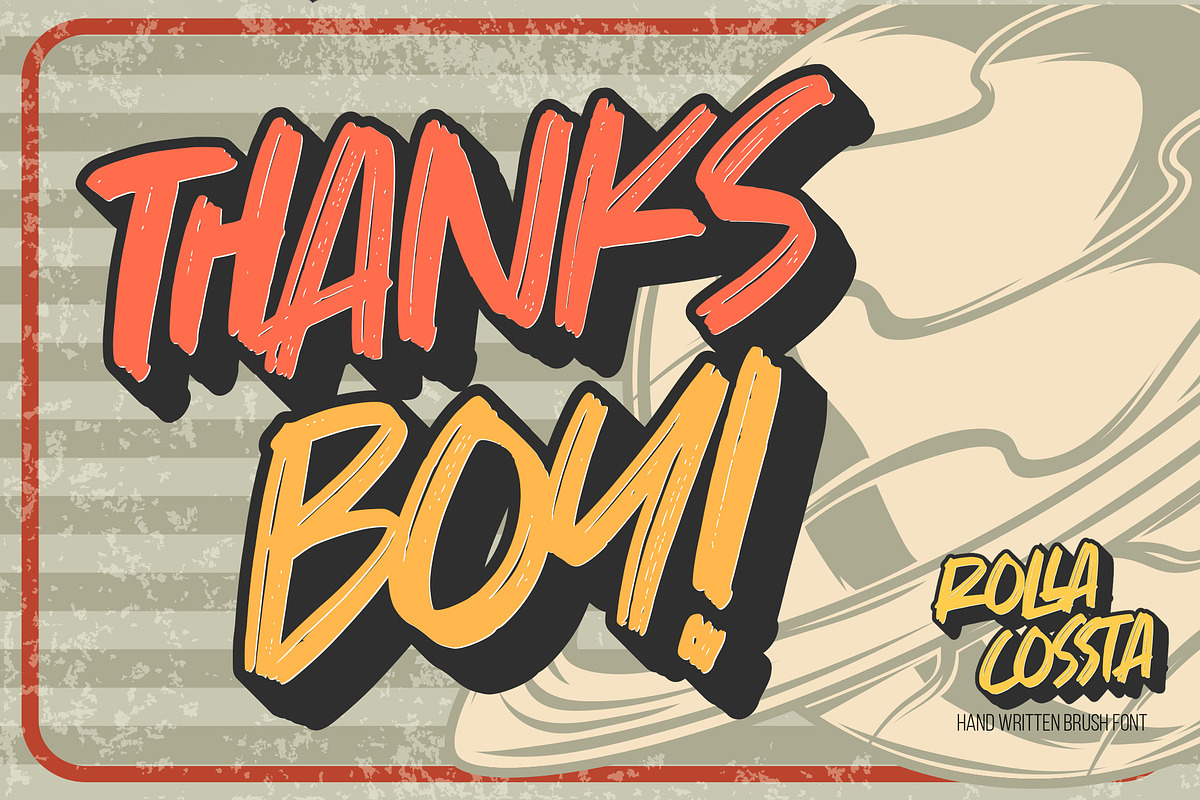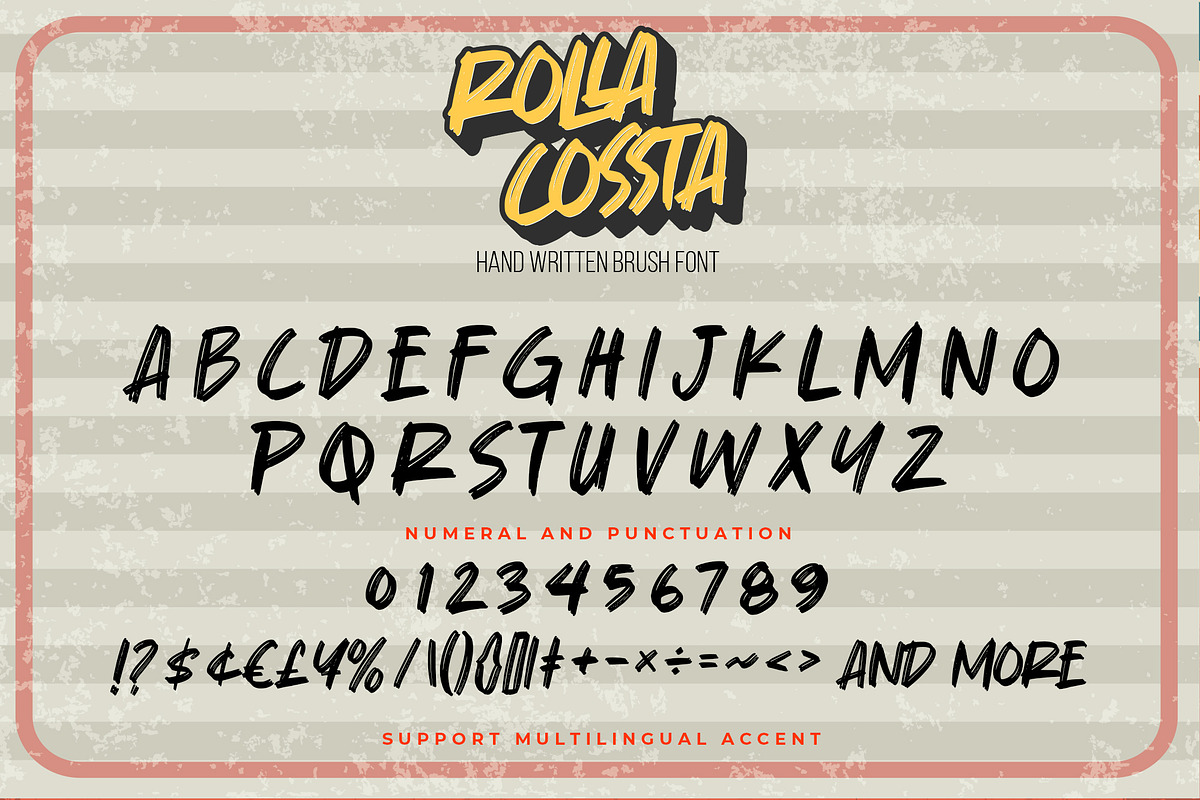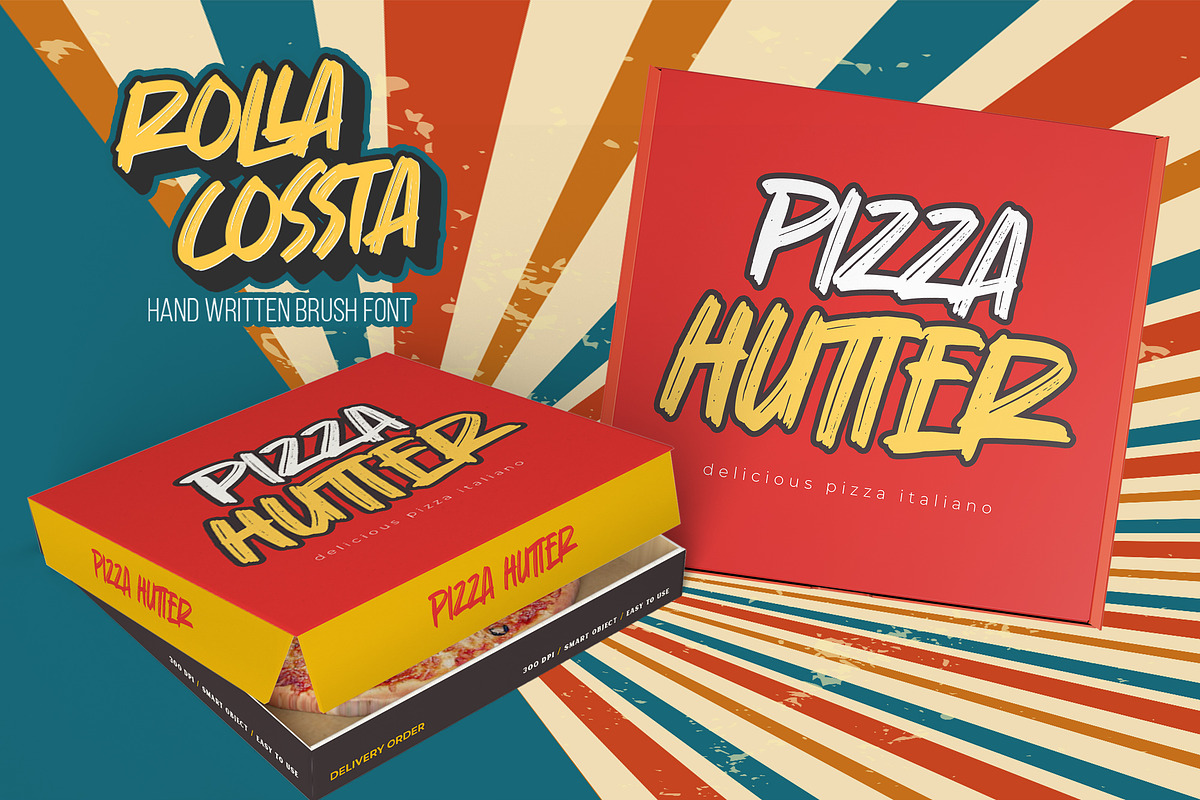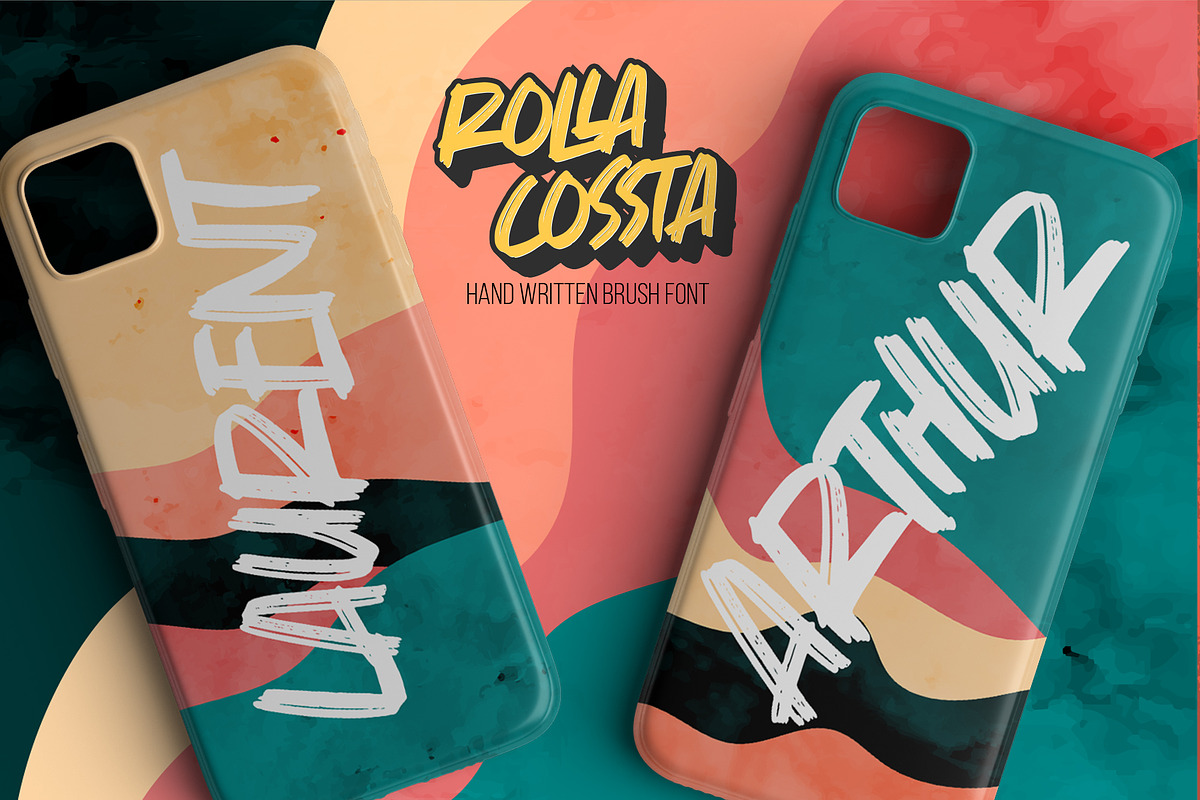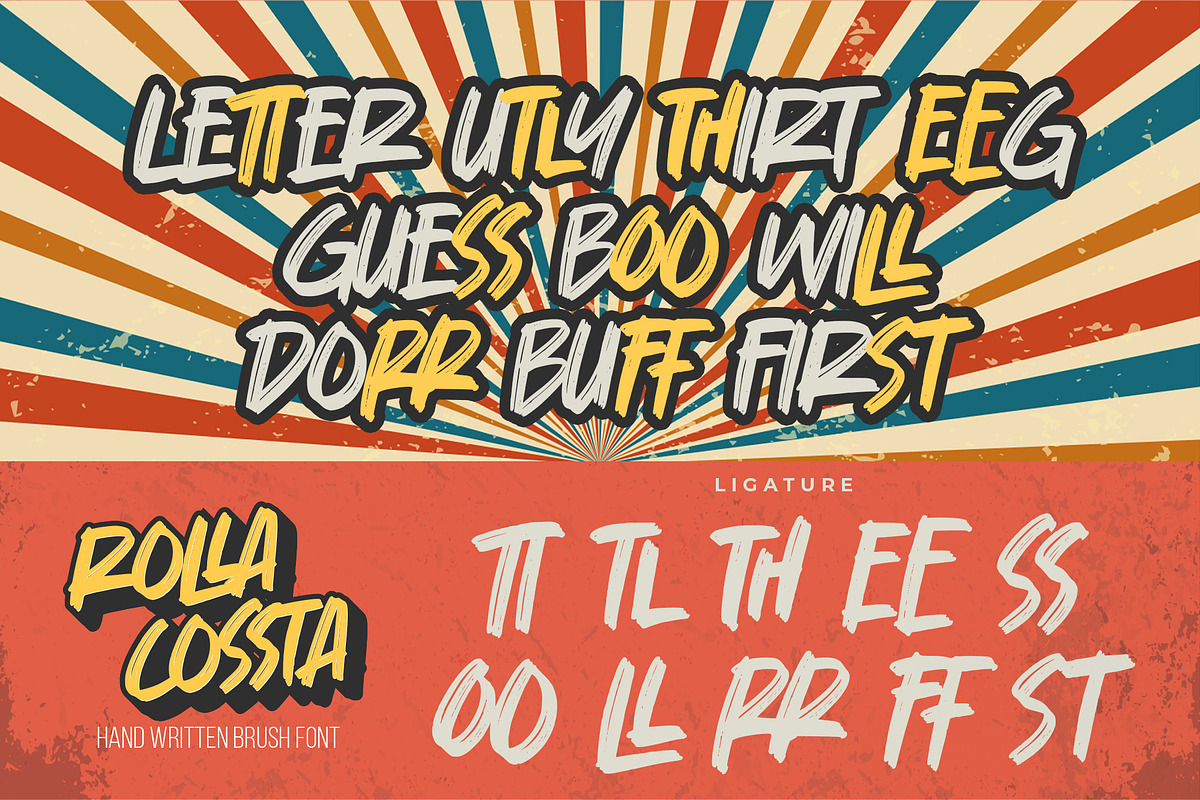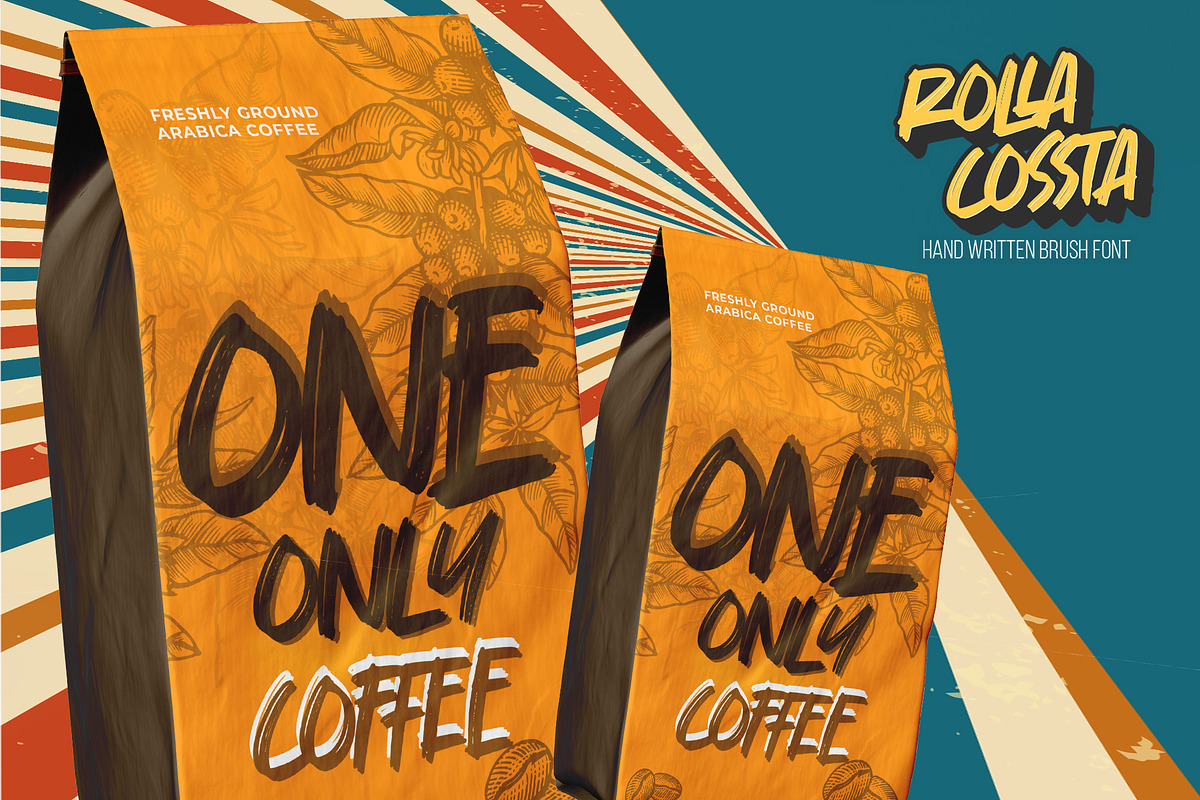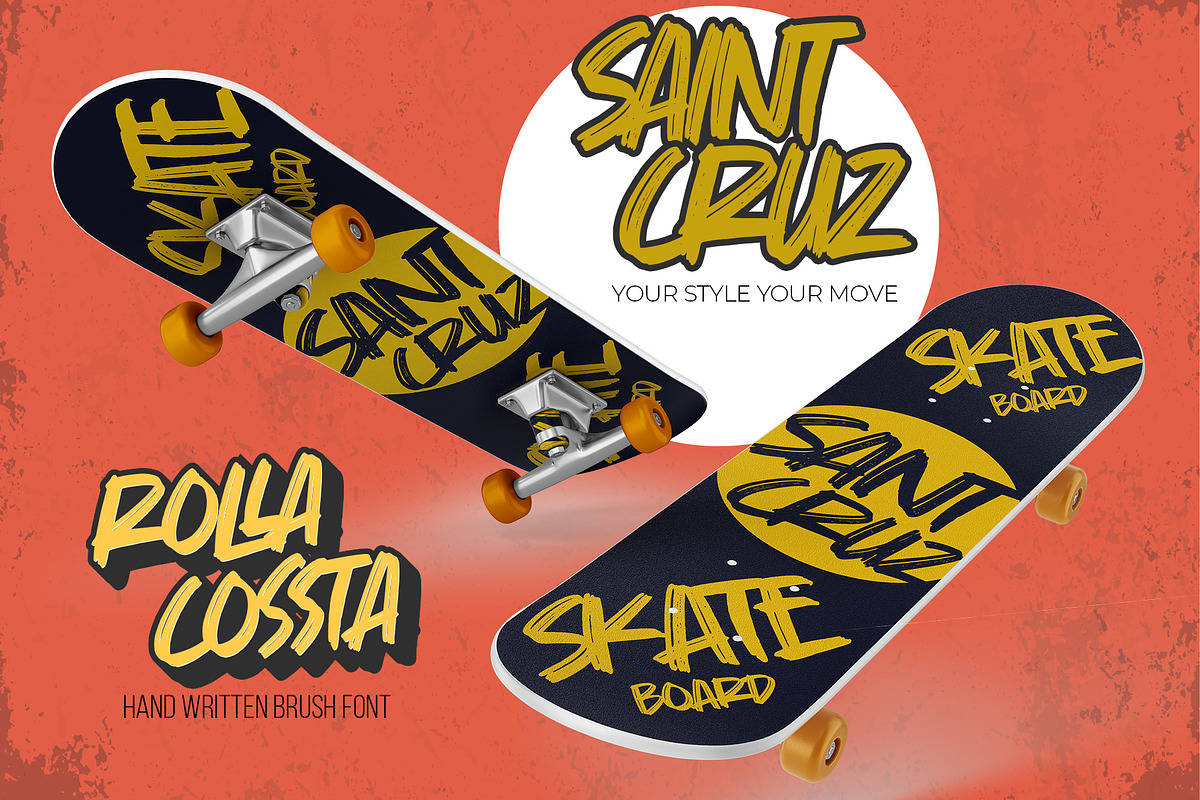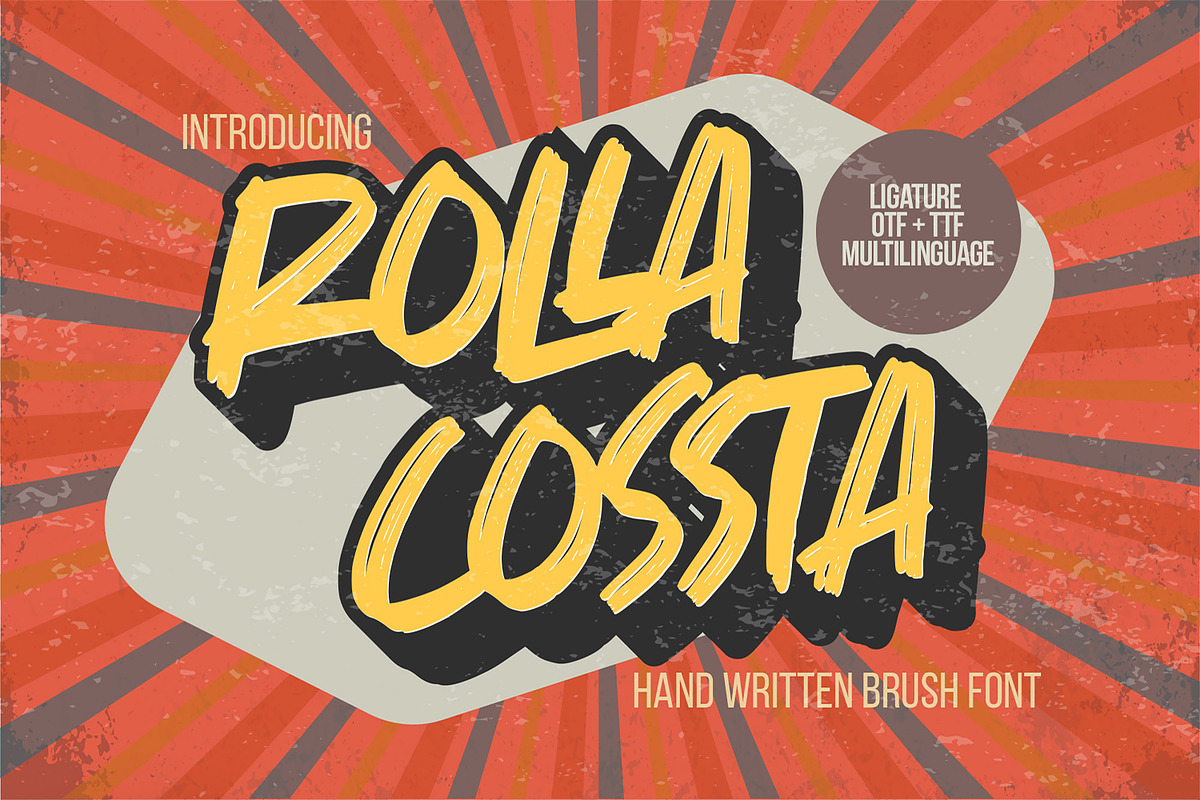
Rolla Coassta - Handwritten Brush Fo
Rolla Cossta - Handwritten Brush Font . Introducing of designs look modern, unique and fun. It’s perfect for labels, quotes, posters, DIY projects, branding, packaging, greeting cards, websites, photography overlays, signs, window art, scrapbooking, tags and so much more!our new product that inspired by Street Tagging, graffiti style with a fun theme very good for graffity poster, flyer, childrenbook, cartoon, comic etc